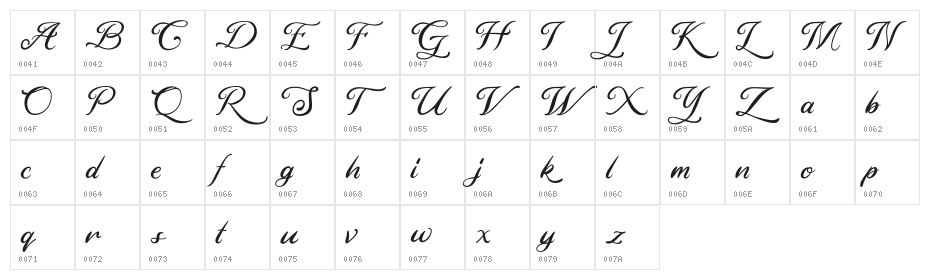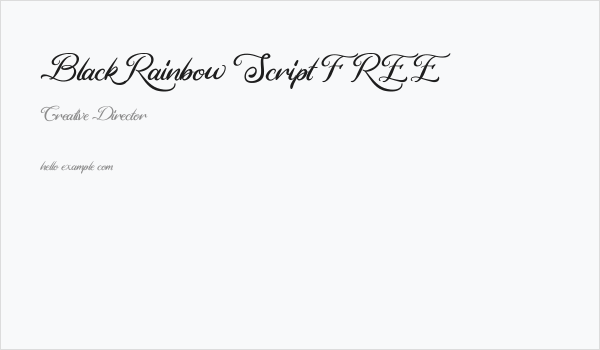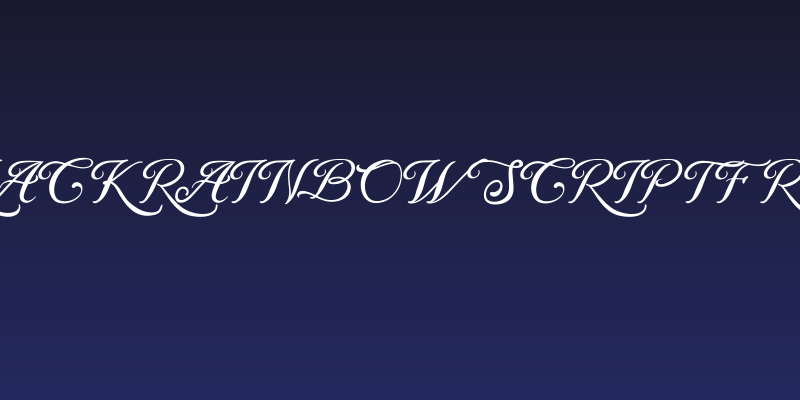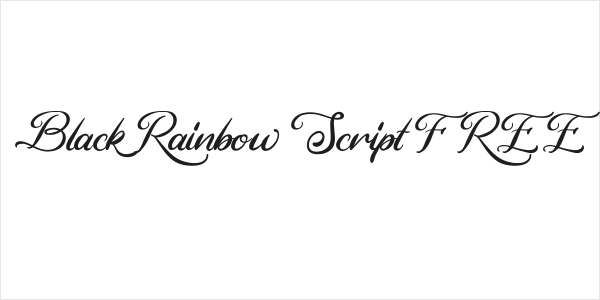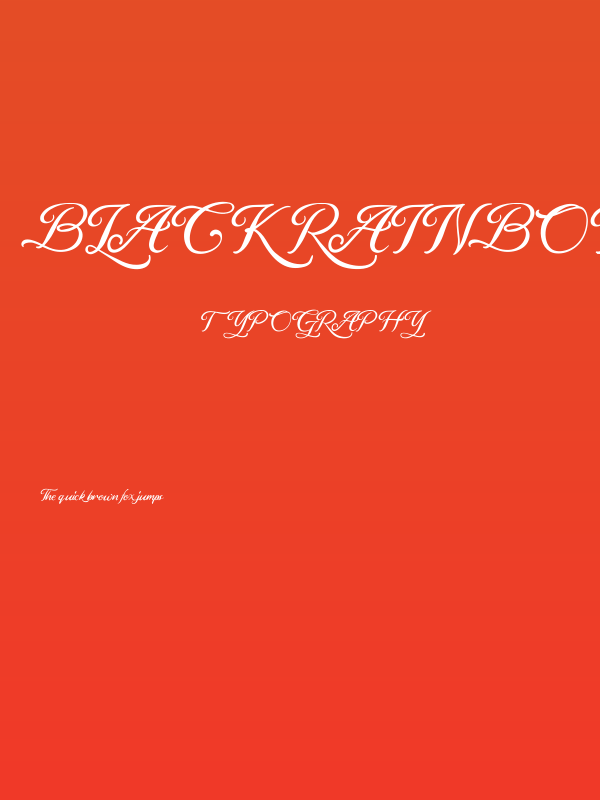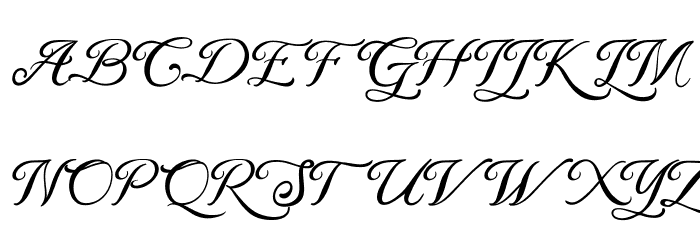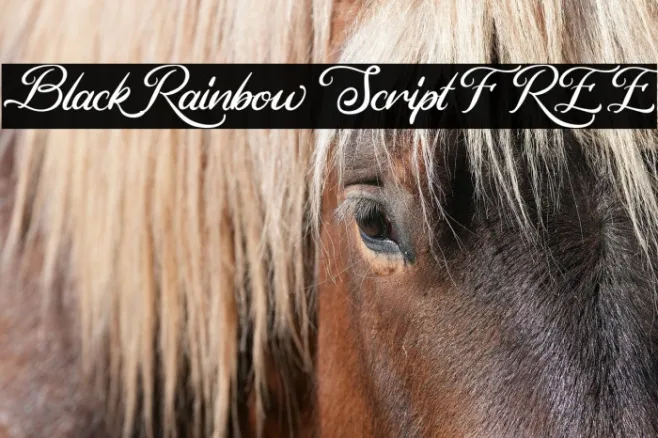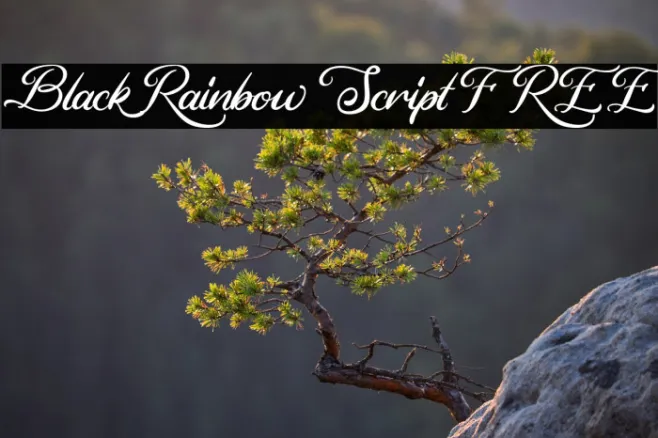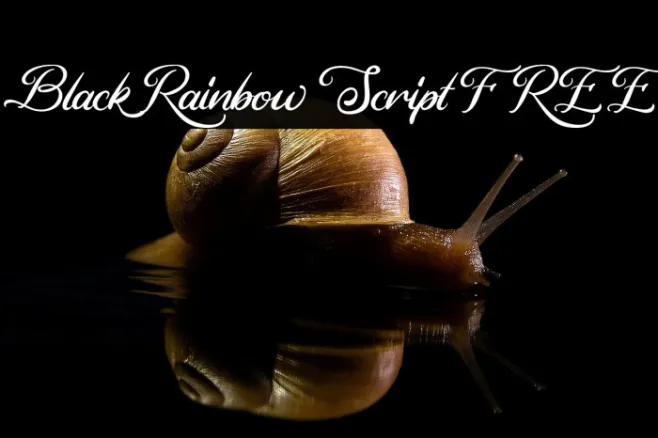
Black Rainbow Script FREE Font
Black Rainbow Script FREE Description
This elegant script font features flowing, cursive letters with a classic and sophisticated style. The uppercase letters are ornate, with intricate loops and flourishes that add a touch of elegance and formality. The lowercase letters maintain a smooth, connected flow, enhancing readability while preserving the decorative nature of the script. This font is ideal for projects that require a touch of sophistication and grace, such as wedding invitations, formal event programs, or high-end branding. The characters are well-spaced, allowing for clear legibility despite the decorative elements. The overall design is balanced, with a medium contrast between thick and thin strokes, giving it a refined and polished appearance.
| Use Case | Headlines, Invitations, Branding |
| Proposed Projects | Wedding invitations, formal event programs, luxury branding, greeting cards. |